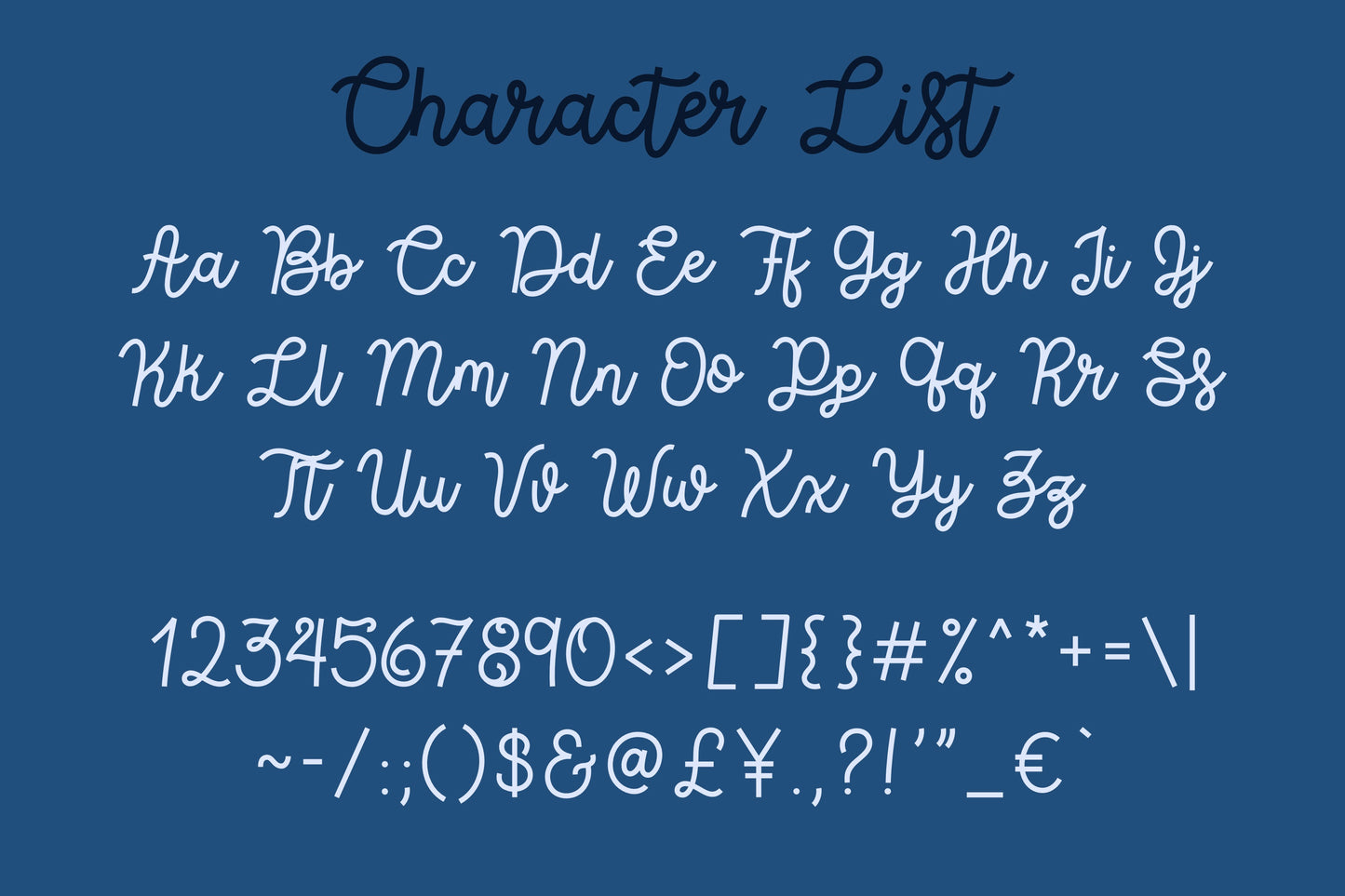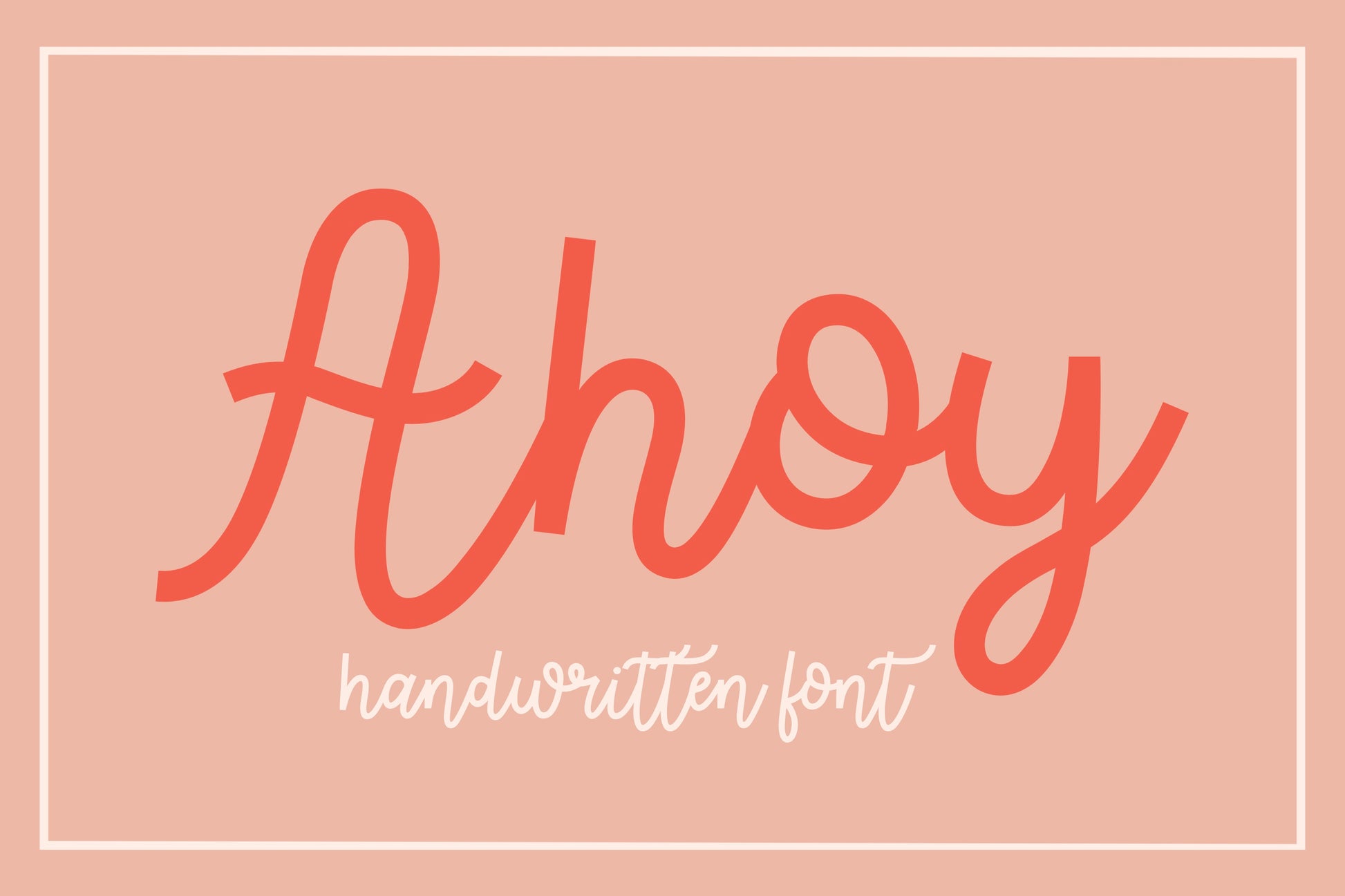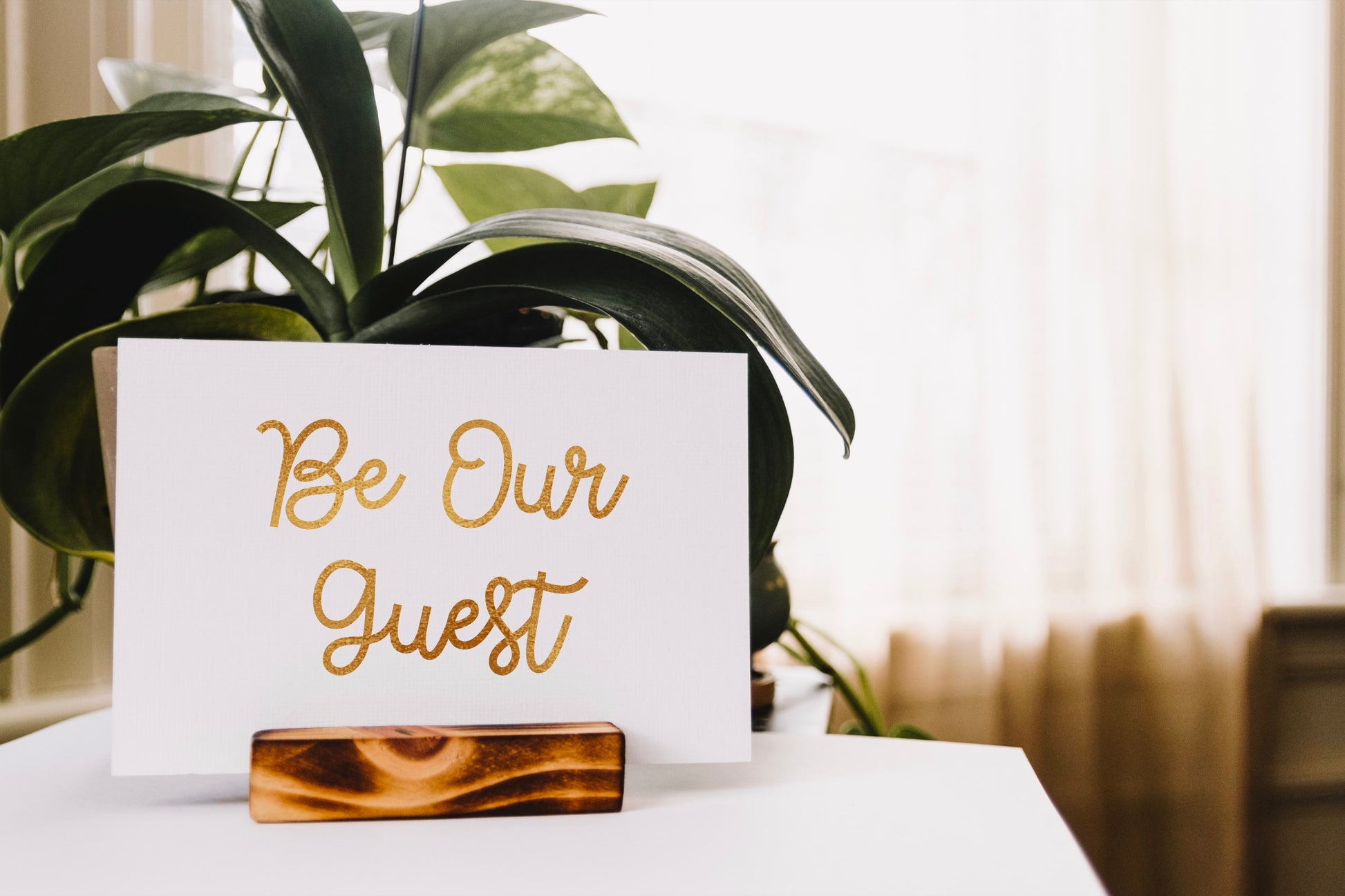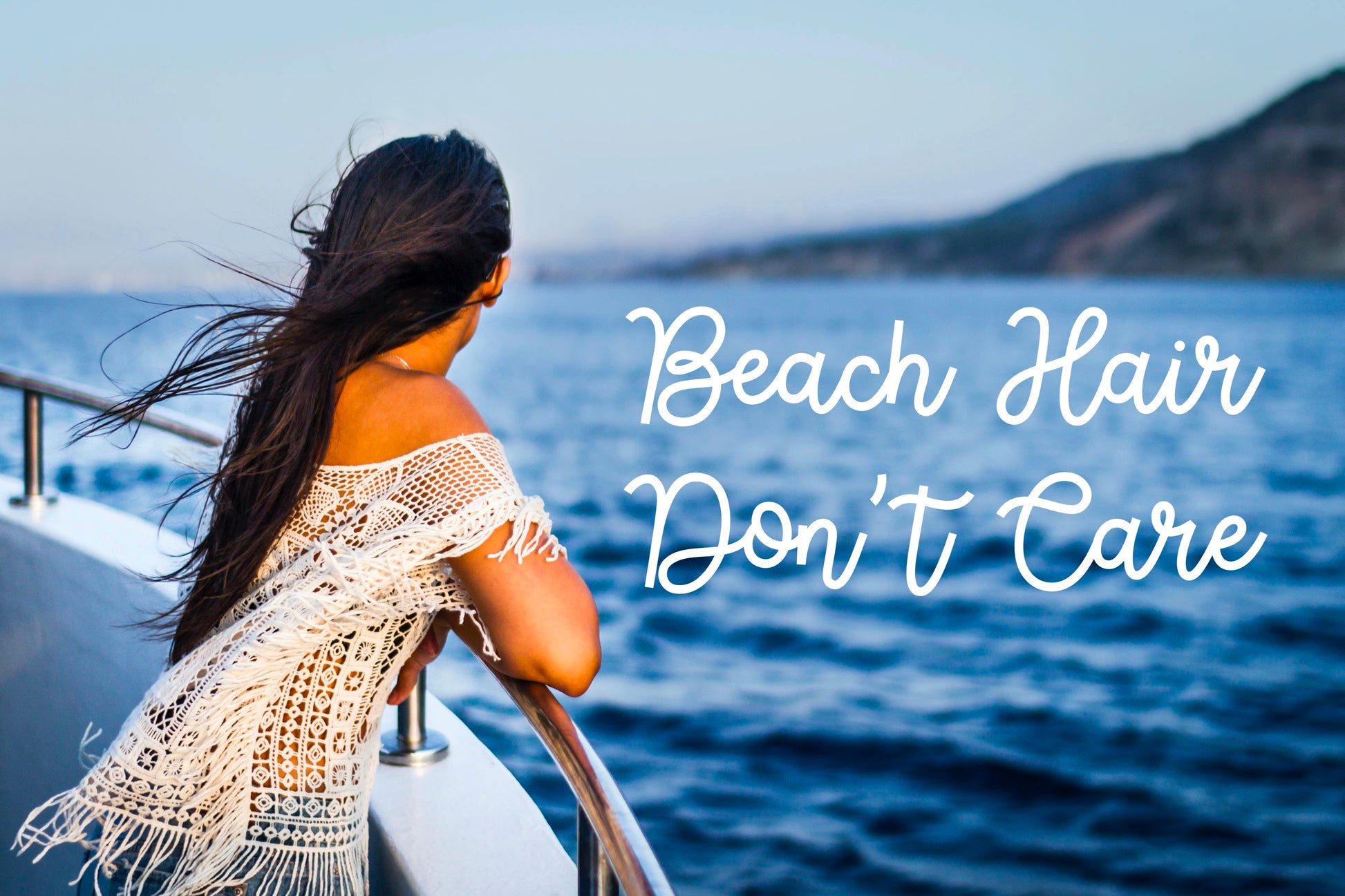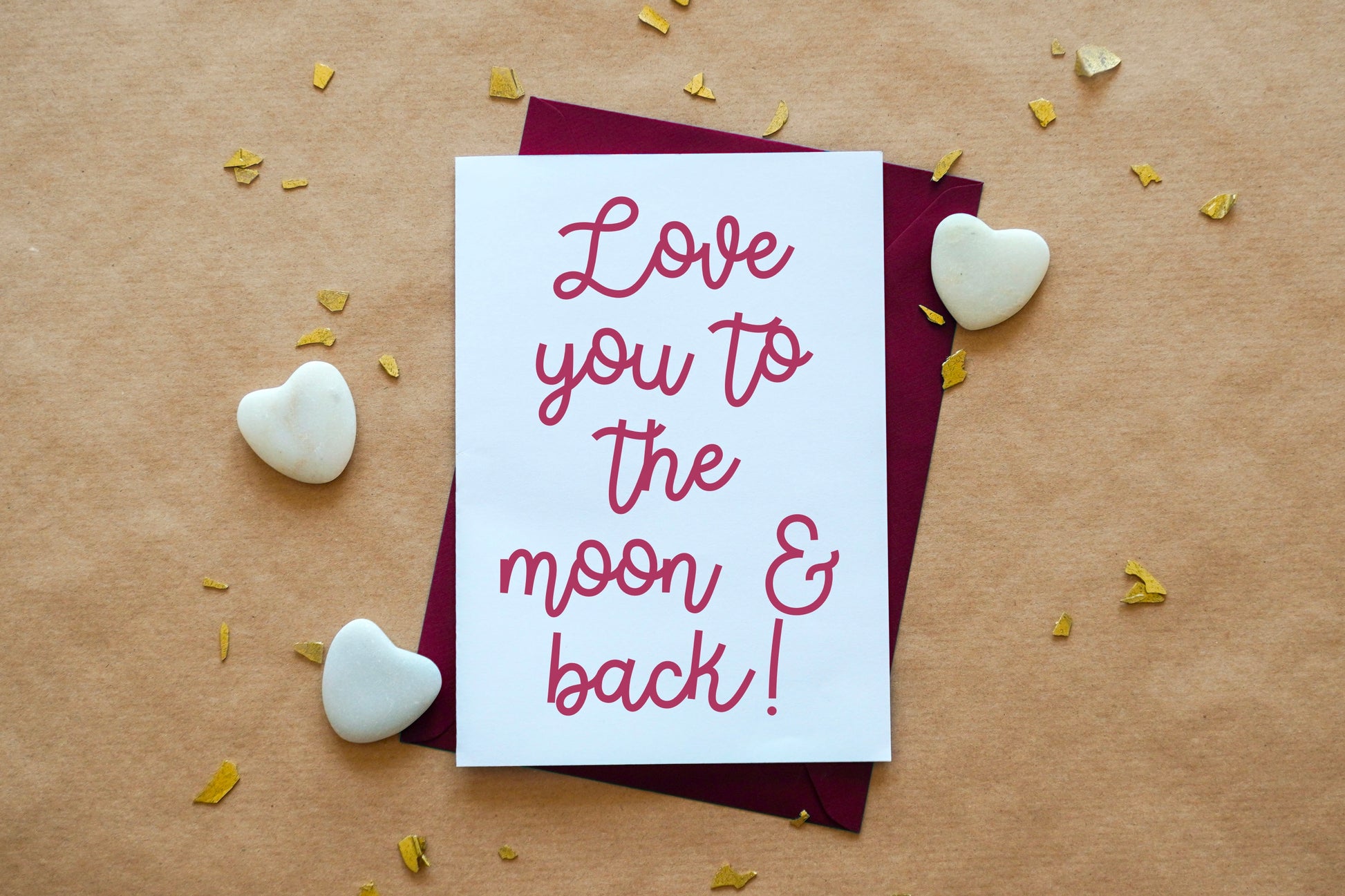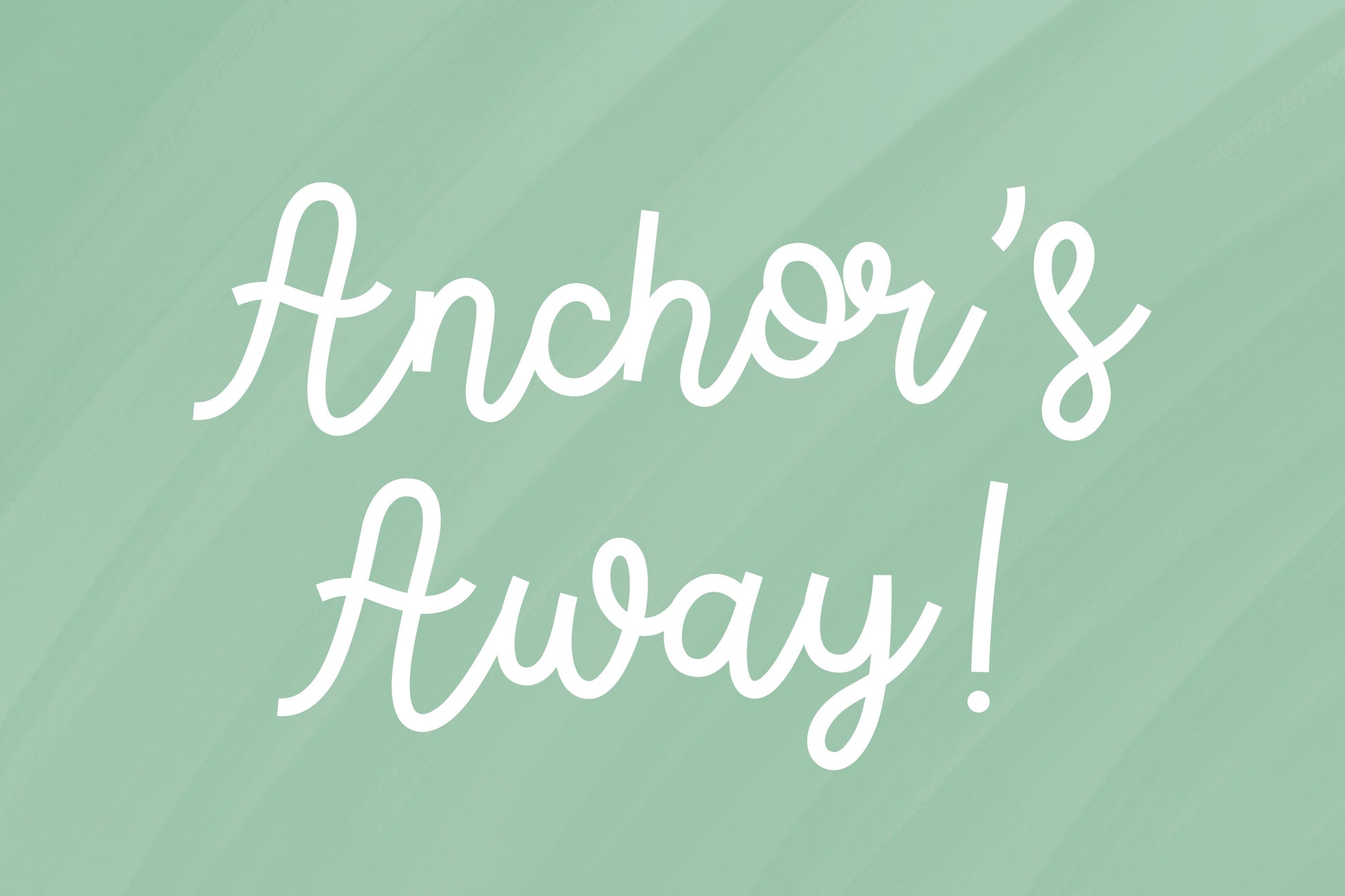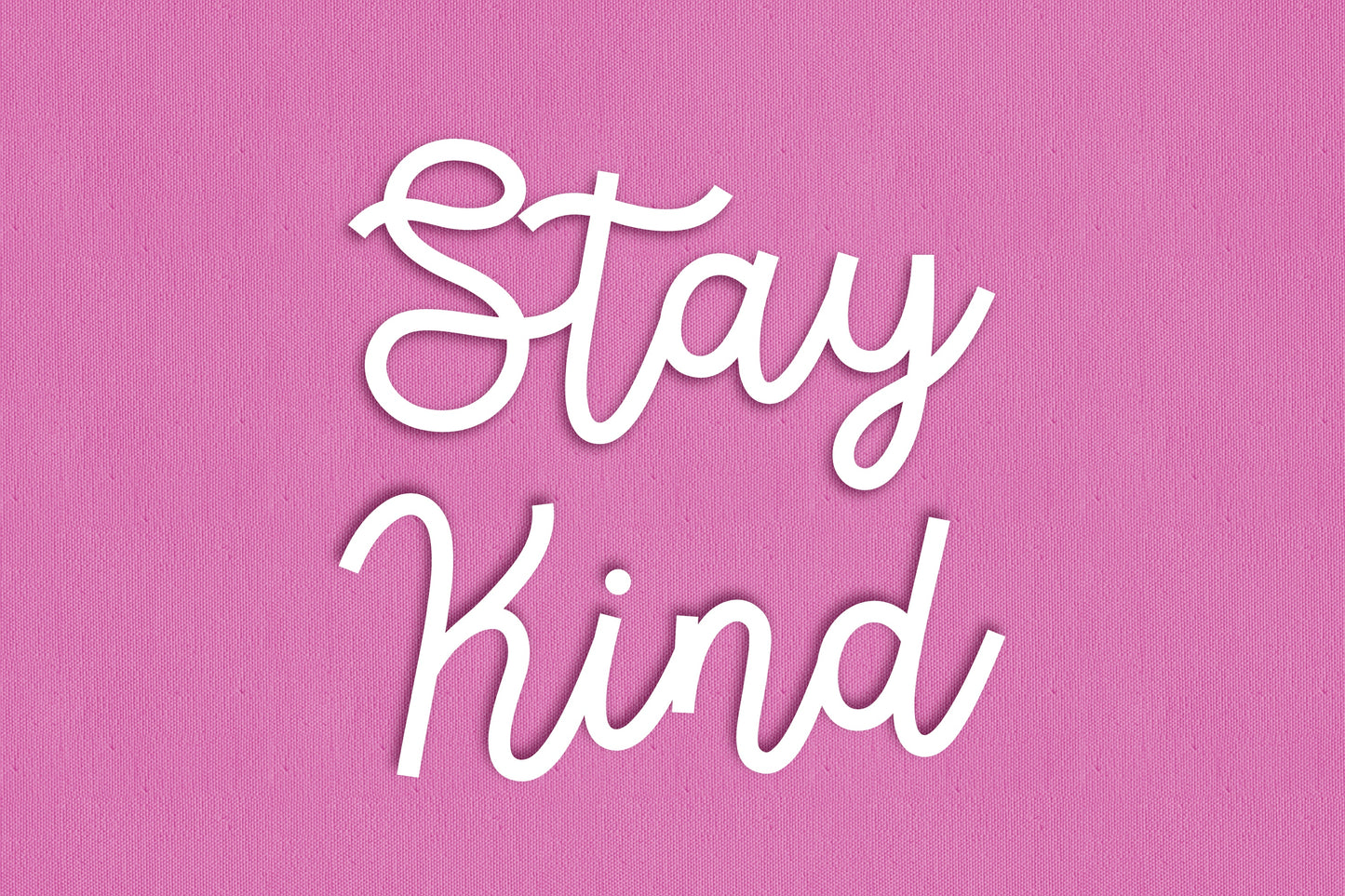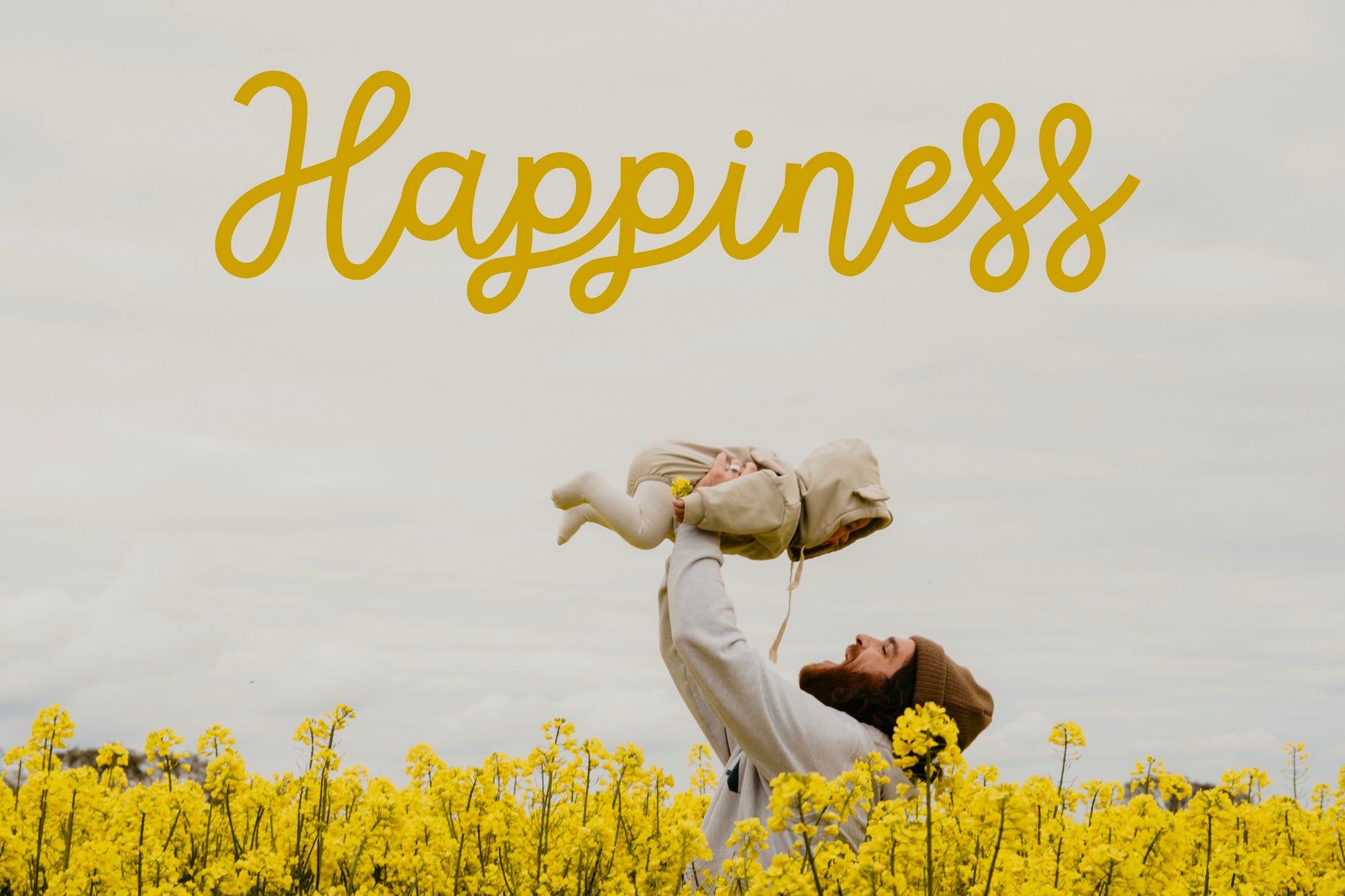
Ahoy Handwritten Script Font
This is my Ahoy handwritten/hand drawn font. This unique, script font with squared off edges will add a fun, bouncy, handmade touch to your design! This versatile font is great for casual, playful occasions, designs, and logos!